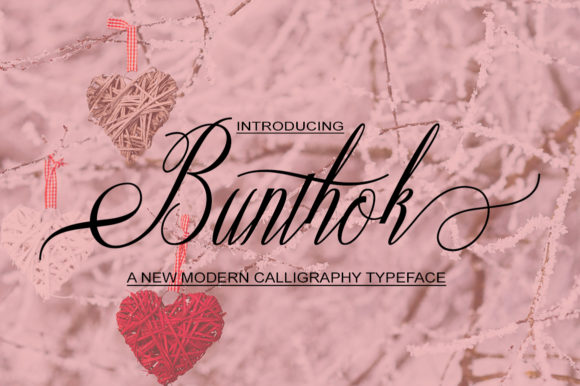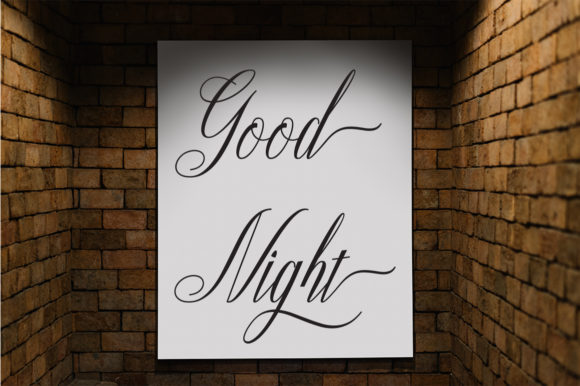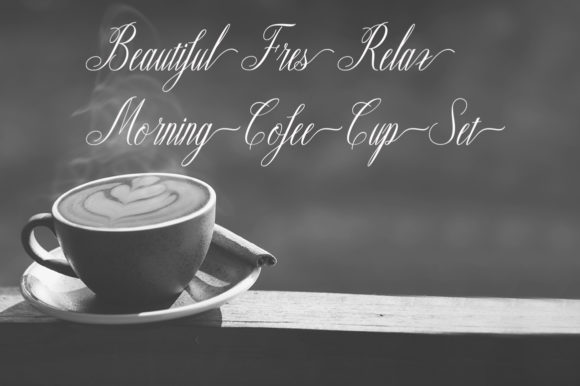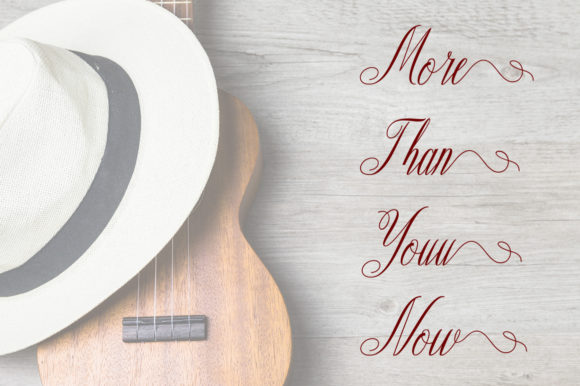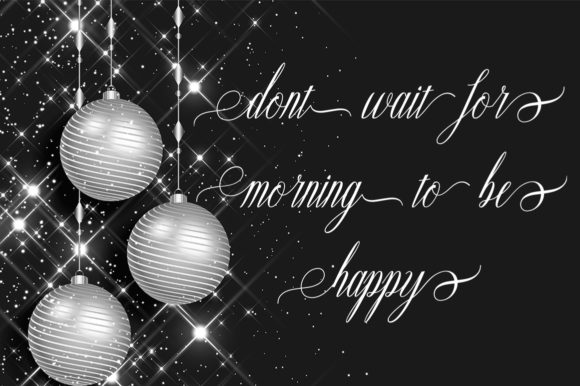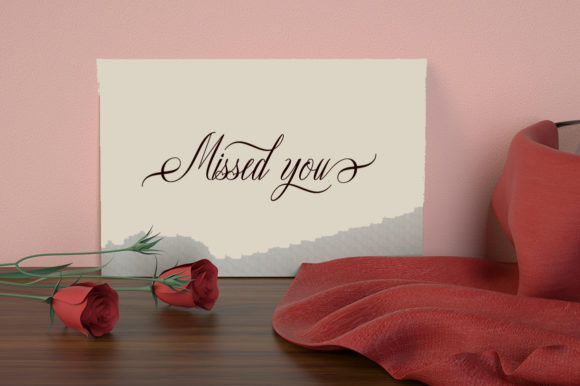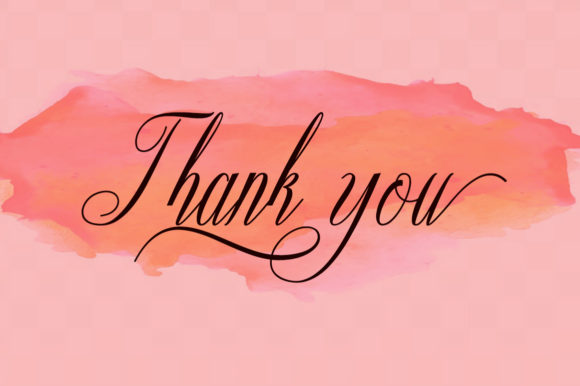
Bunthok Font
About Bunthok Font
The Bunthok is a modern calligraphy font. It had a natural handwritten touch and includes modern and unique forms of calligraphy.